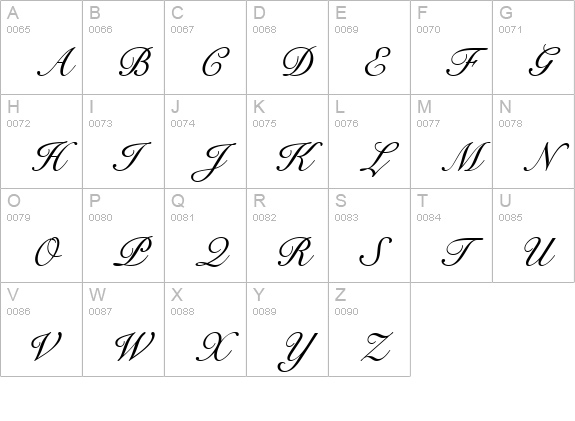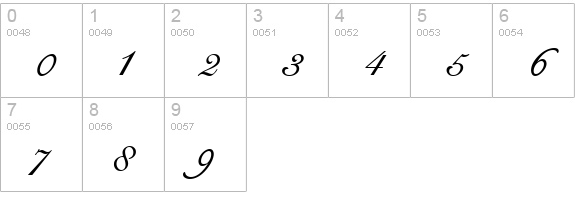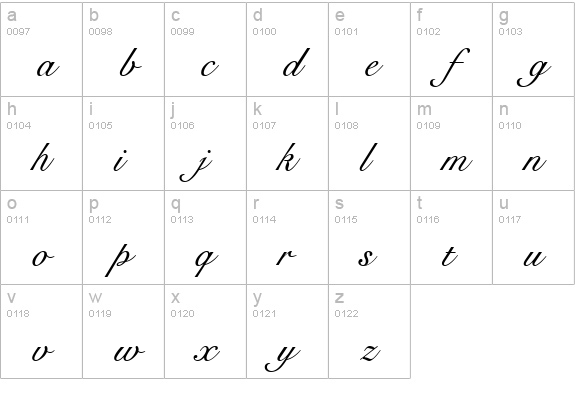
Signet Roundhand ATT Font Details
Signet Roundhand ATT is a beautiful and elegant font that exudes sophistication and grace. With its delicate curves and flowing strokes, this font captures the essence of classic calligraphy. Whether used for formal invitations, wedding stationery, or personal correspondence, Signet Roundhand ATT adds a touch of refinement to any project. What sets Signet Roundhand ATT apart is not only its stunning design but also its availability as a free download. Yes, you read that right – this exquisite font can be yours without spending a dime! Thanks to FontsMarket.com, you can easily access and enjoy the beauty of Signet Roundhand ATT without any cost. FontsMarket.com offers a wide range of fonts, and Signet Roundhand ATT is just one of the many gems waiting to be discovered. Imagine having this exceptional font at your fingertips, ready to elevate your design projects to new heights. With Signet Roundhand ATT, you can effortlessly create eye-catching logos, captivating headlines, or elegant branding materials. Its versatility and timeless appeal make it a valuable addition to any designer's arsenal. Whether you are a professional graphic designer or an aspiring creative enthusiast, Signet Roundhand ATT is the perfect companion. Its ease of use and legibility ensure that your message is communicated effectively and beautifully. The intricate details of this font will captivate your audience and leave a lasting impression. Don't miss out on the opportunity to enhance your creative endeavors with Signet Roundhand ATT. Visit FontsMarket.com today and experience the freedom of freely downloading this exquisite font. Unleash your creativity and let Signet Roundhand ATT elevate your designs to new levels of excellence.